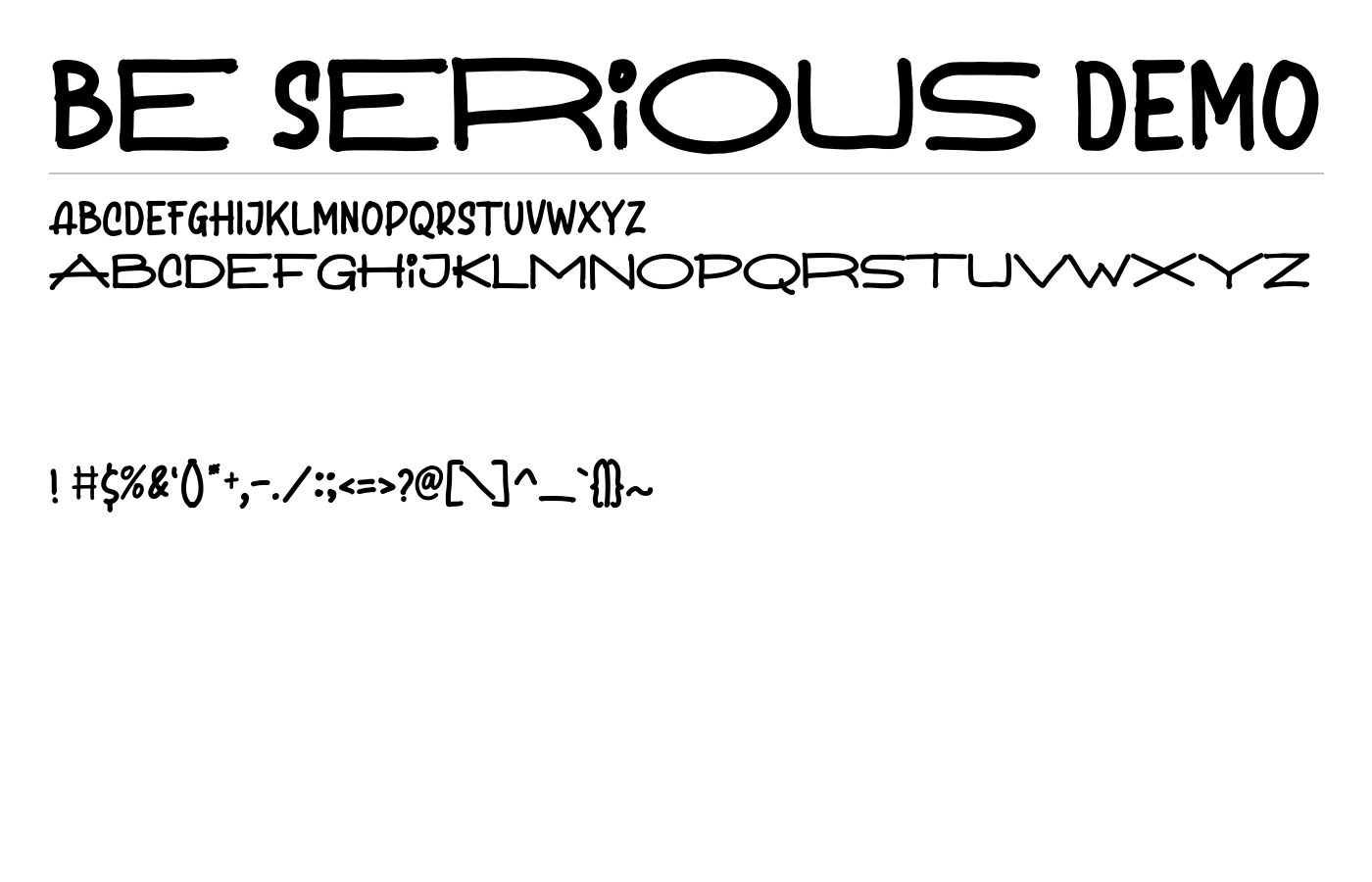
Be Serious DEMO is a playful, hand-drawn sans serif font with uneven and slightly quirky letterforms that give it a casual and approachable personality. Its irregular strokes and varying widths create a lively, informal feel, making it ideal for creative projects, children's materials, or fun branding that wants to avoid a serious tone. This font works best in headlines, posters, and designs that seek a friendly, hand-crafted aesthetic.
Be Serious DEMO Font
About Be Serious DEMO Font
| Font family | Be Serious DEMO Font |
| Designer | Gustian Agung Asprilla |